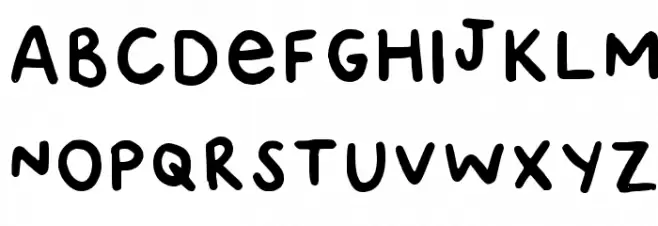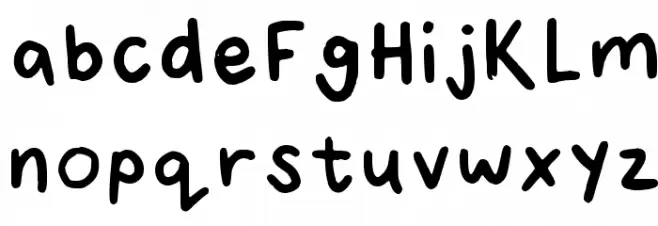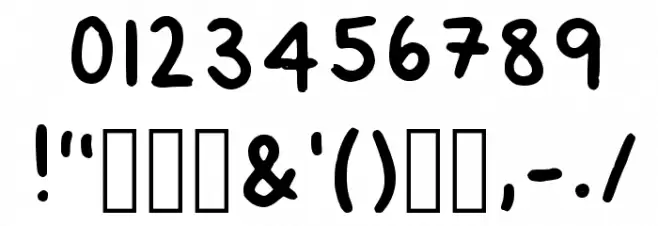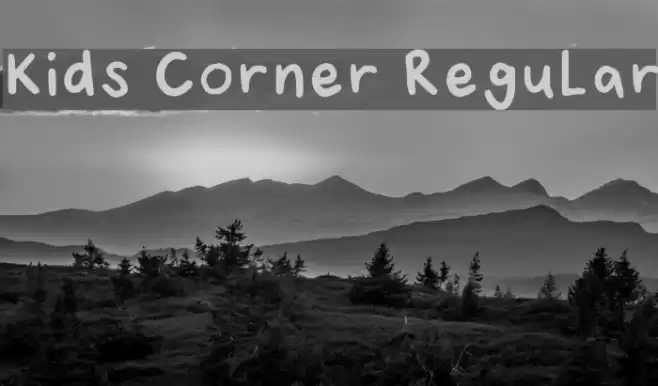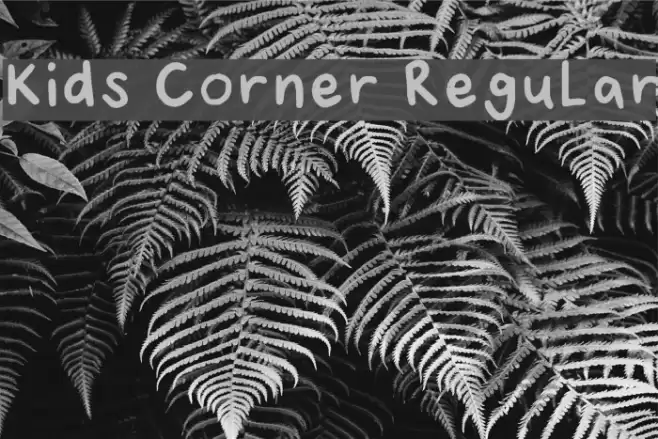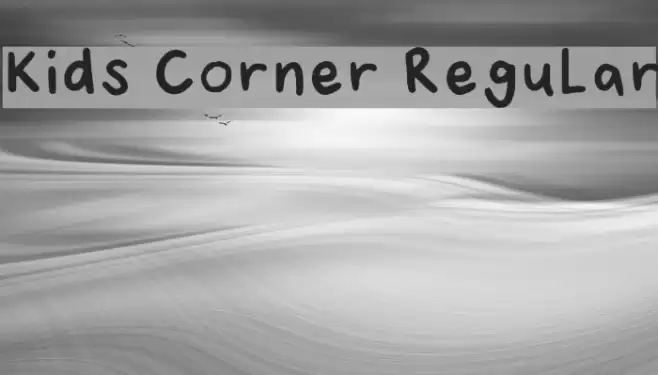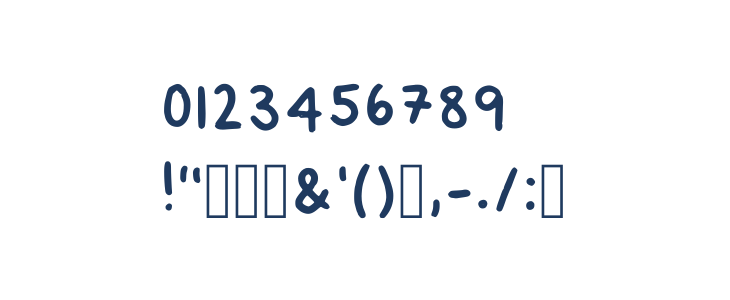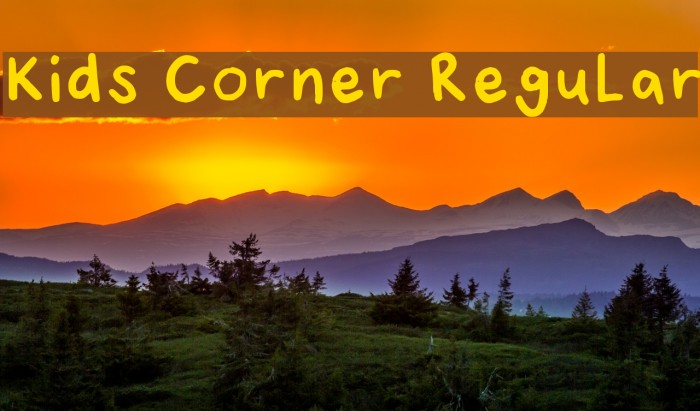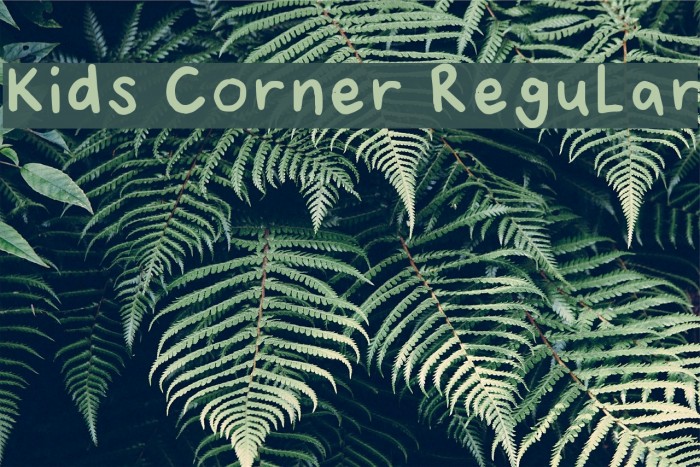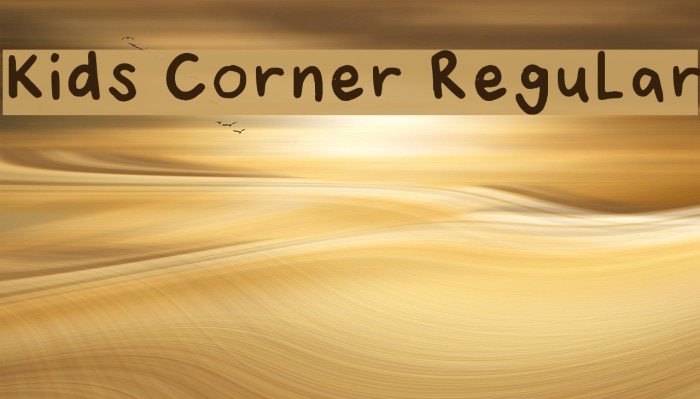
Kids Corner Regular Font
Kids Corner Regular Description
This playful and whimsical font features a handwritten style with a casual, friendly appearance. The letters are slightly irregular, adding to the charm and informal nature of the design. The strokes are rounded and smooth, giving it a soft and approachable feel. The font maintains a consistent weight throughout, with moderate character spacing that ensures readability while preserving its playful character. The numbers and special characters are designed to match the overall style, making it versatile for various uses. Its childlike essence makes it perfect for projects aimed at a younger audience or for adding a touch of fun to any design.
A playful, handwritten font with a casual and friendly appearance.
- Proposed Projects: Ideal for children's books, educational materials, playful branding, and creative invitations.
- Category: Handwritten
- Overall Style: Playful
- Use Case: Headlines, Logos, Invitations